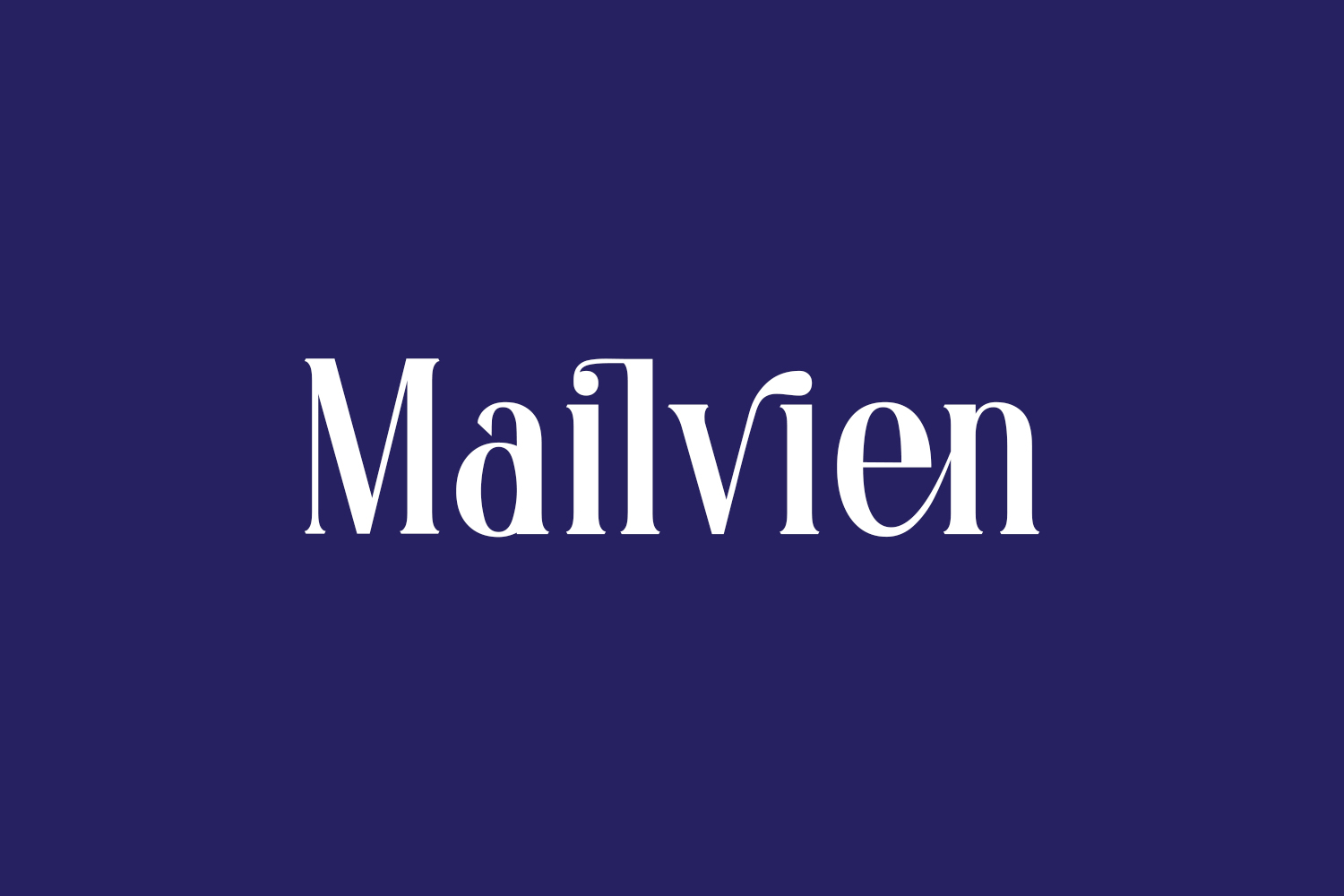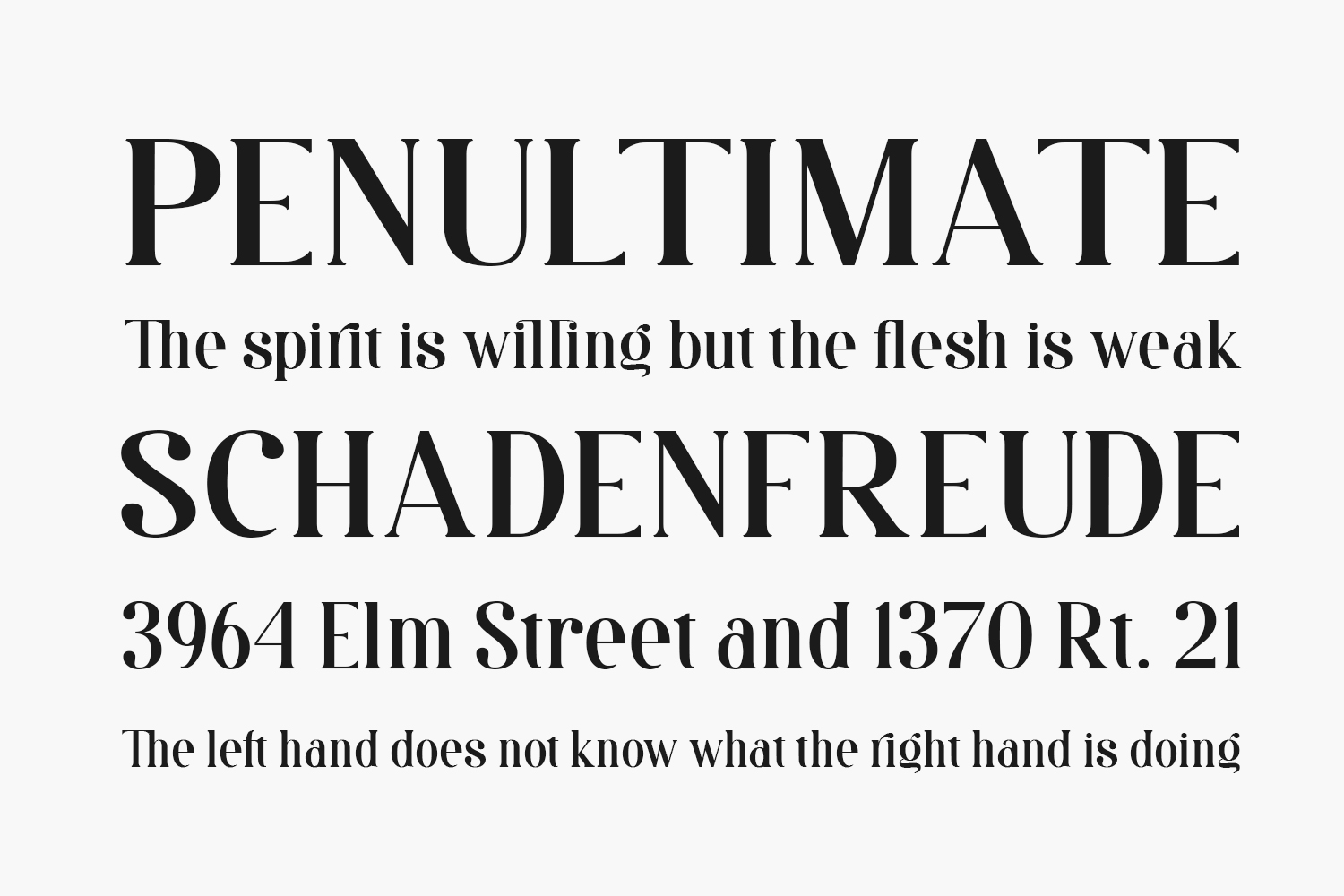
Mailvien Free Font is a cool and thick lettered serif font. No matter the topic, this font will be an incredible asset to your fonts’ library, as it has the potential to elevate any creation. Mailvien Free Font was designed by BrandSemut and is free for personal use only. Please purchase the full version for commercial use.